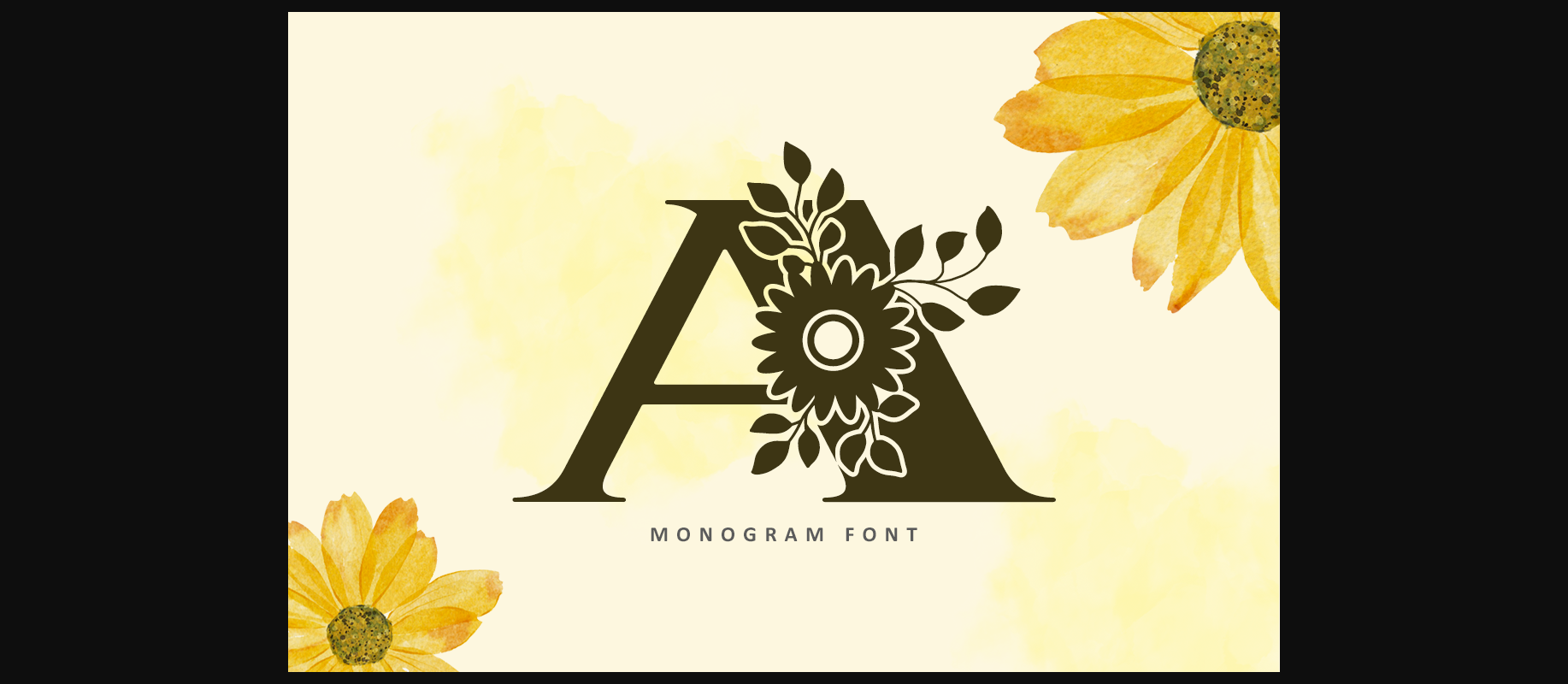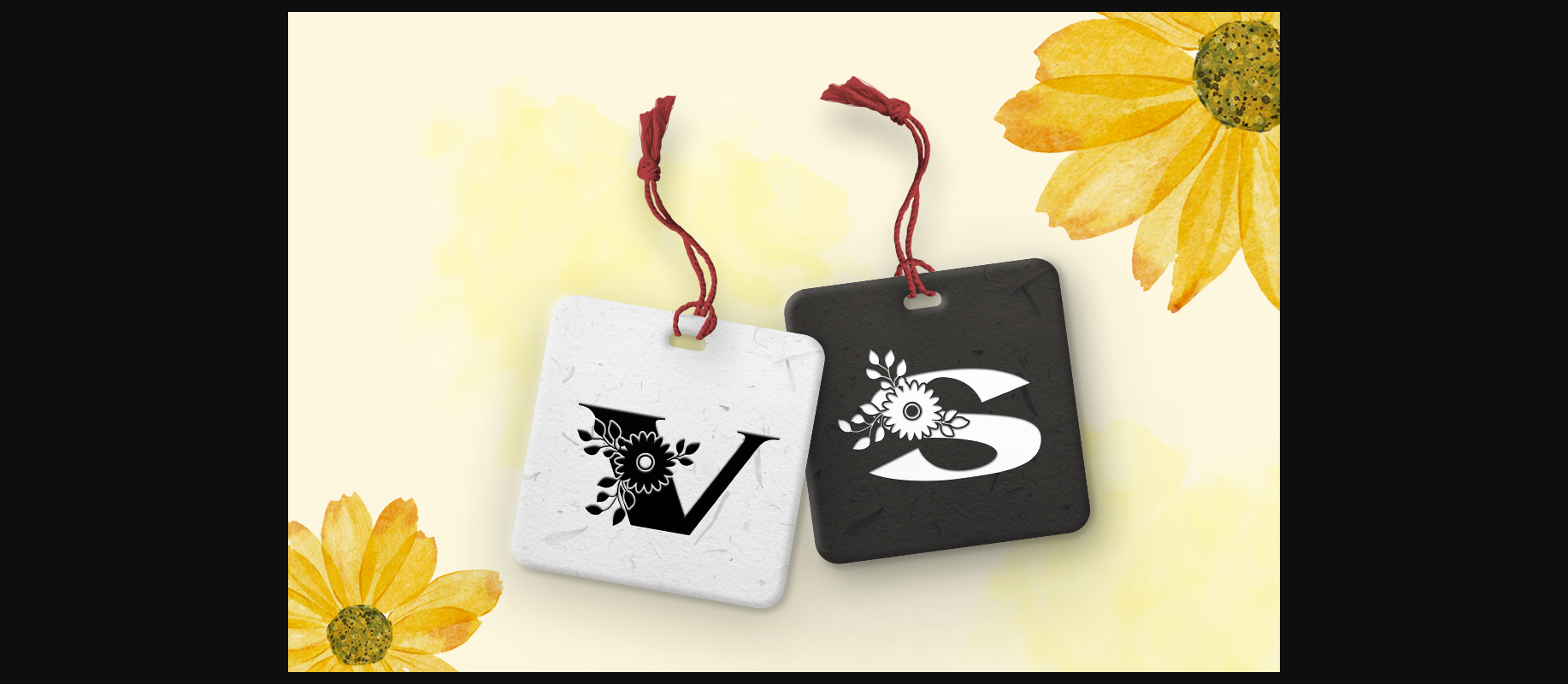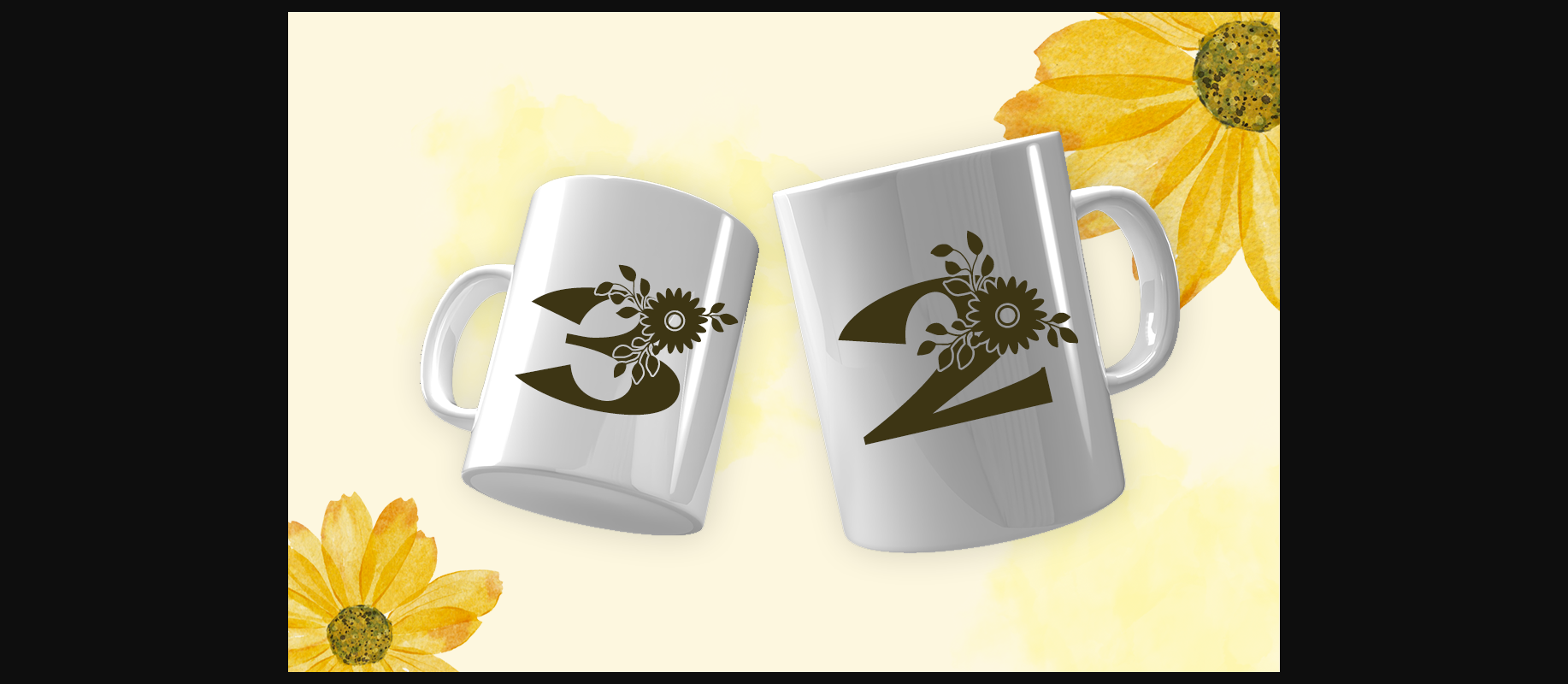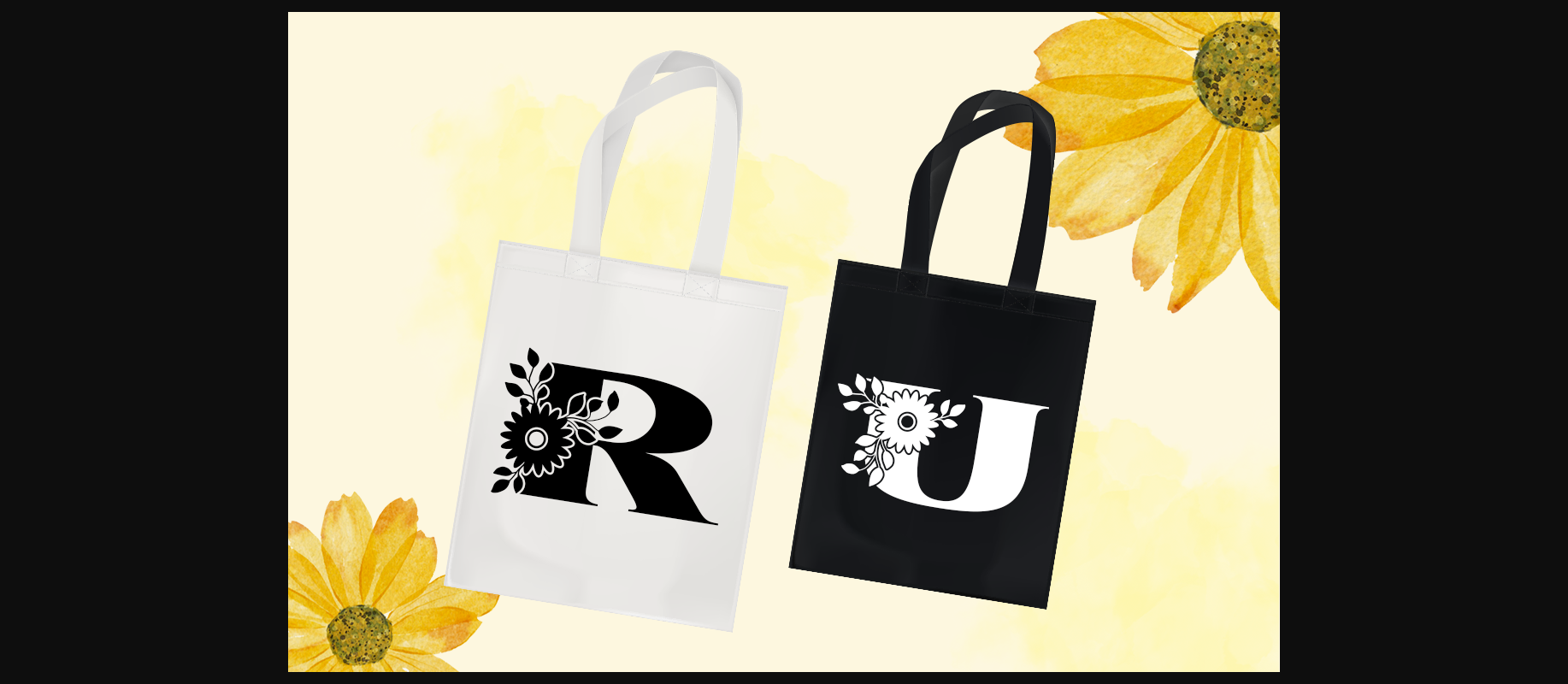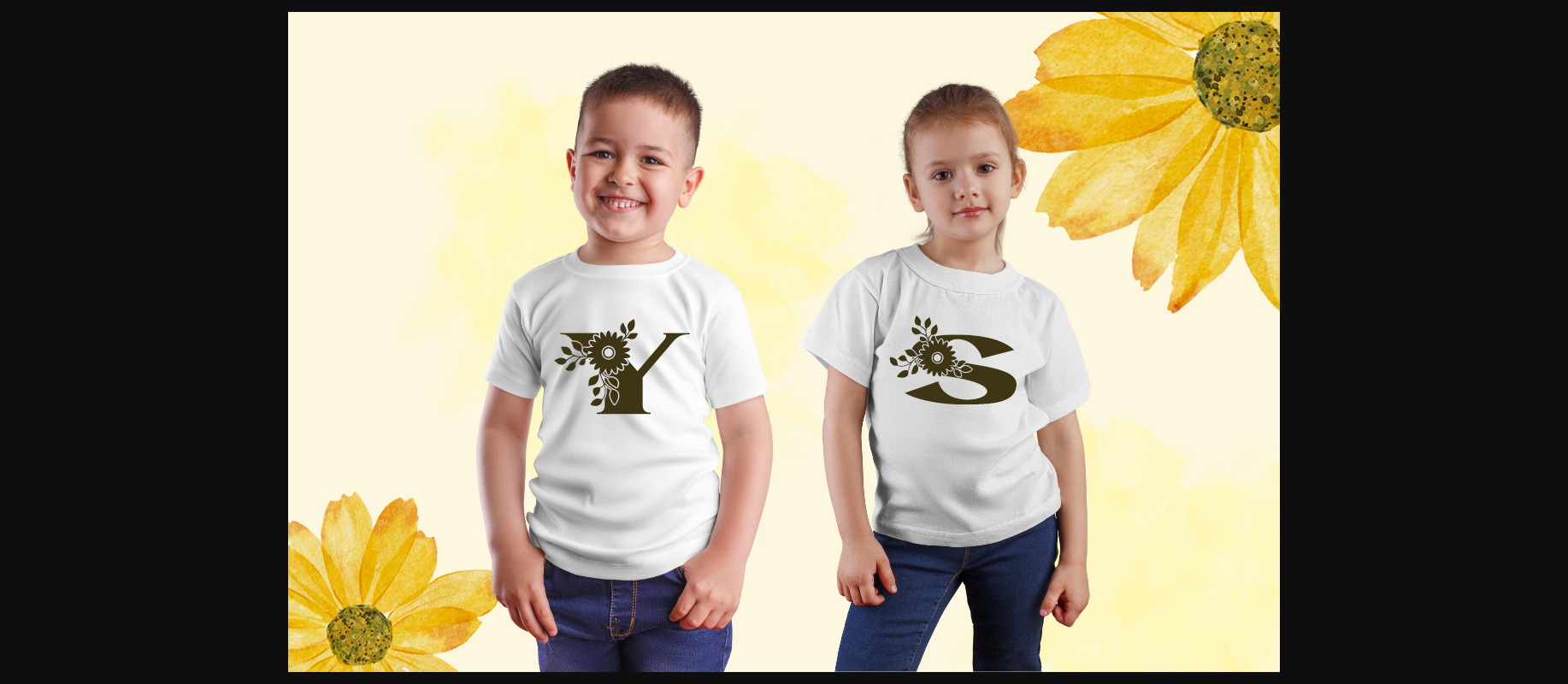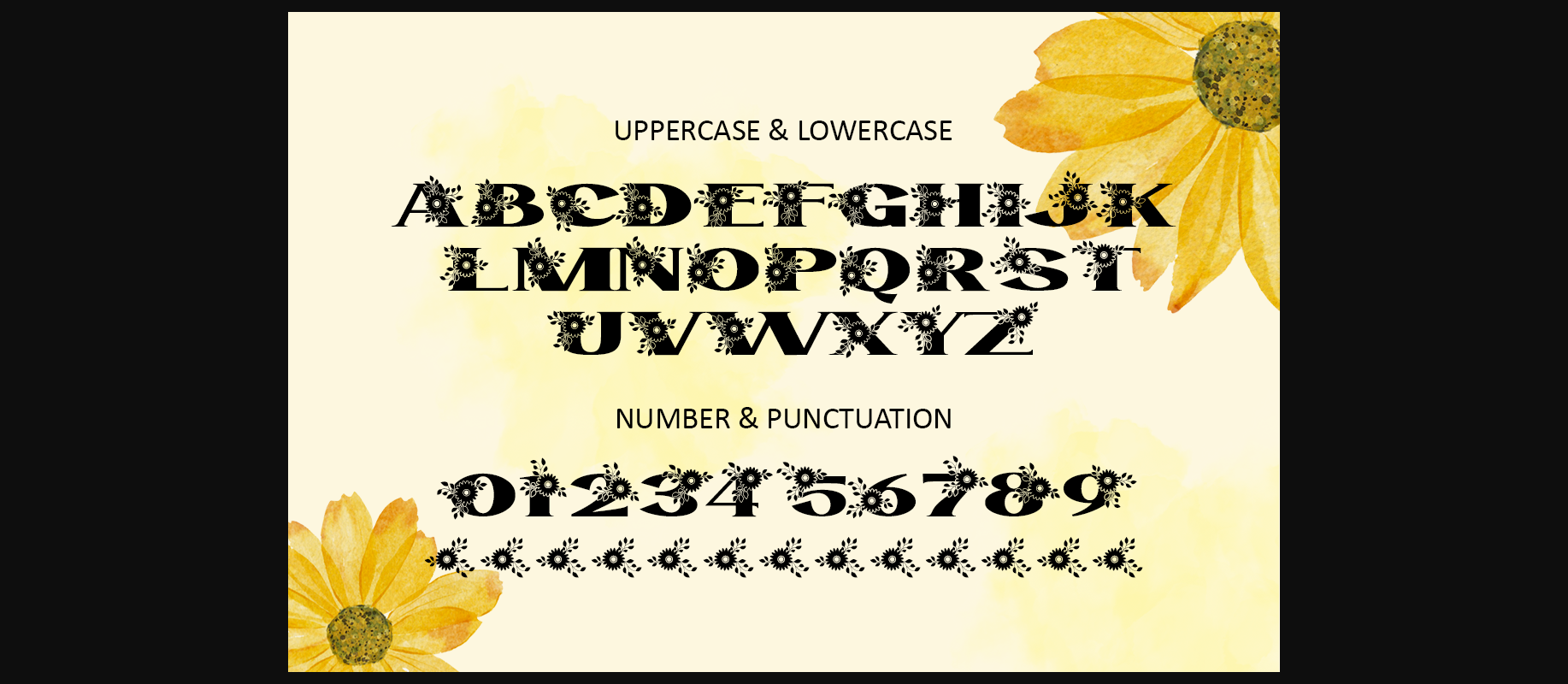
Sunflower Monogram Font
About Sunflower Monogram Font
Sunflower Monogram is a bold, decoraive font inspired by sunflowers,
making it perfect for use on logos and merchandise. It is also suitable for social media, posters, pillows, mugs, clothing and so much more.